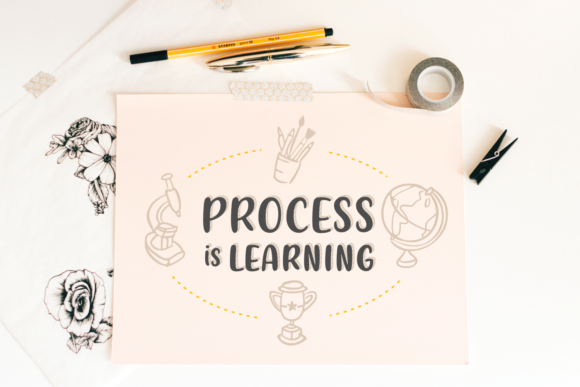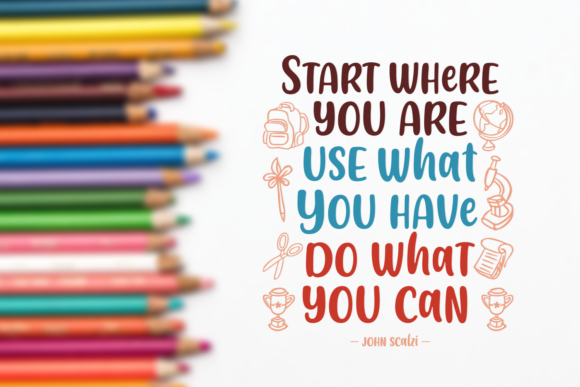
Friendly Schoolmates Font
About Friendly Schoolmates Font
The Friendly Schoolmates is a fun typeface. It has a good readability and clean letters, which makes it a striking typeface. The Friendly Schoolmates comes in a regular and italic version and also includes school themed cliparts.